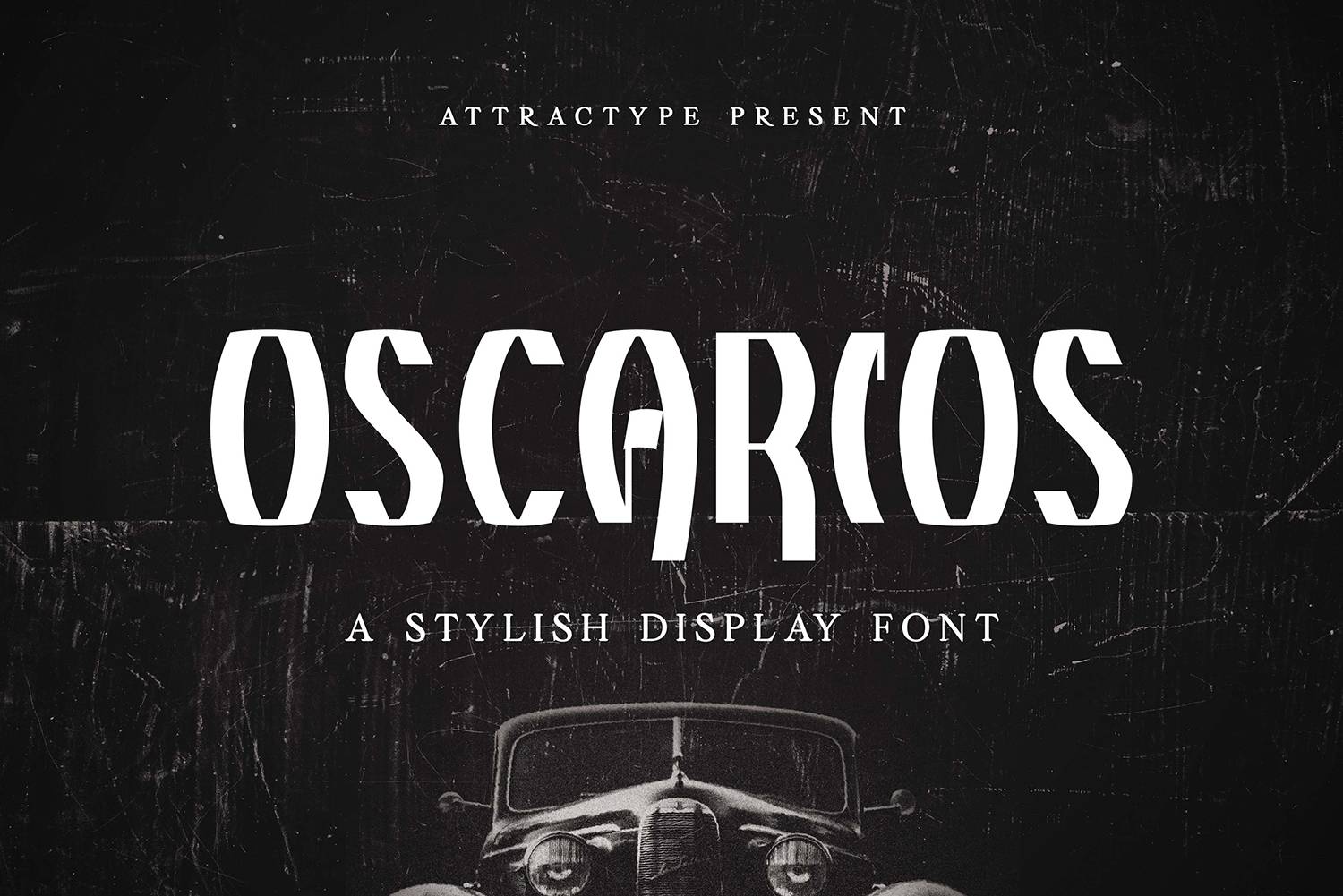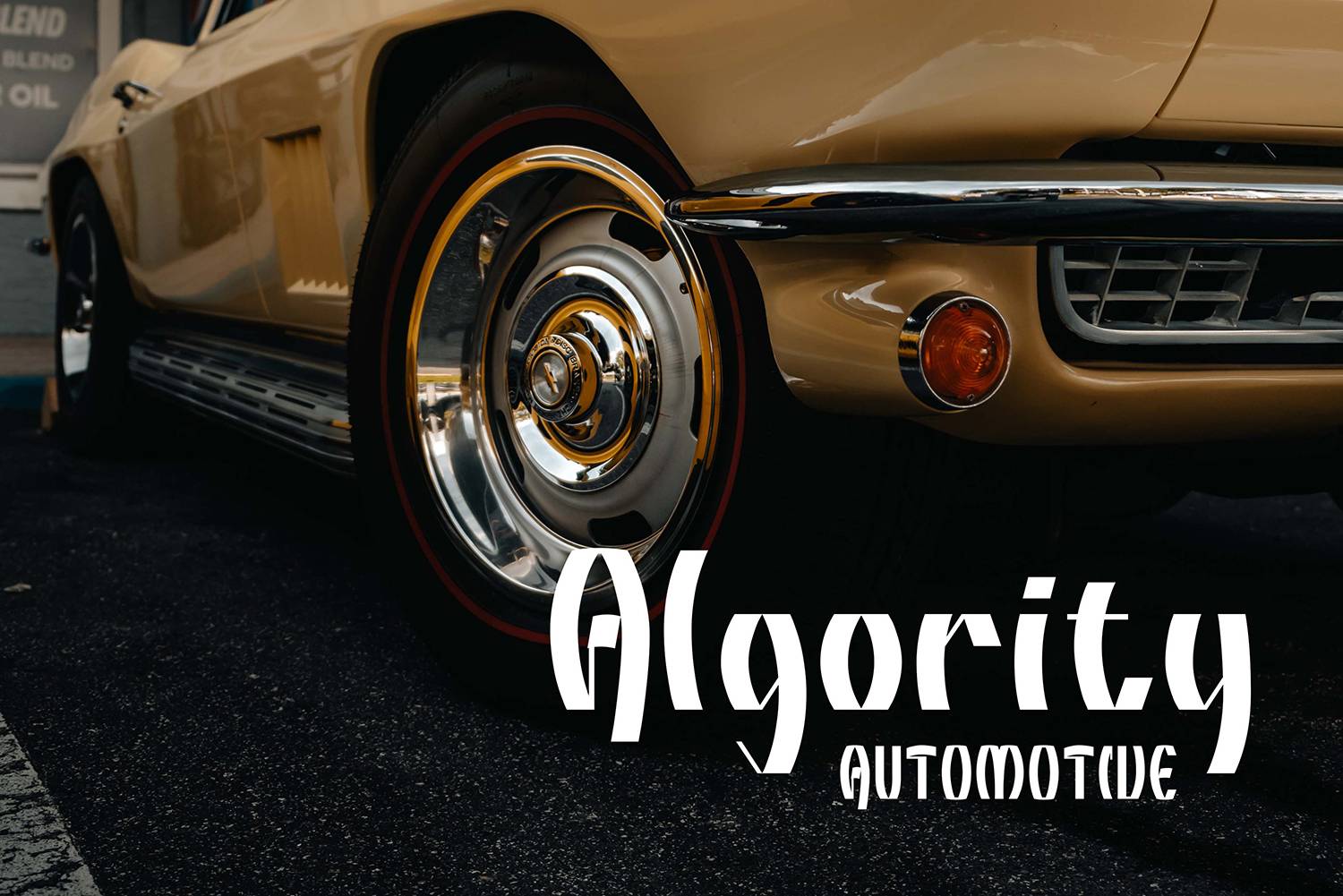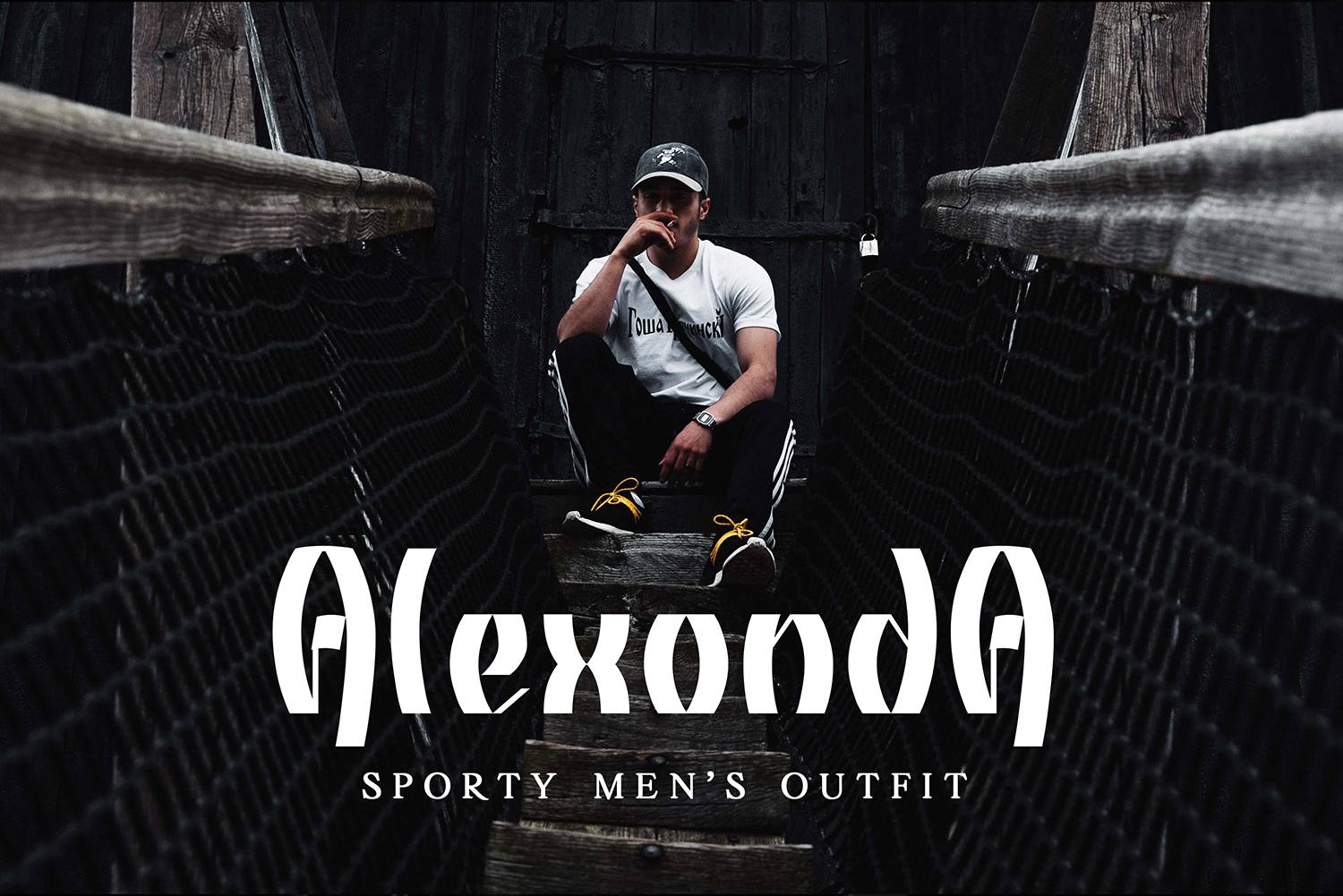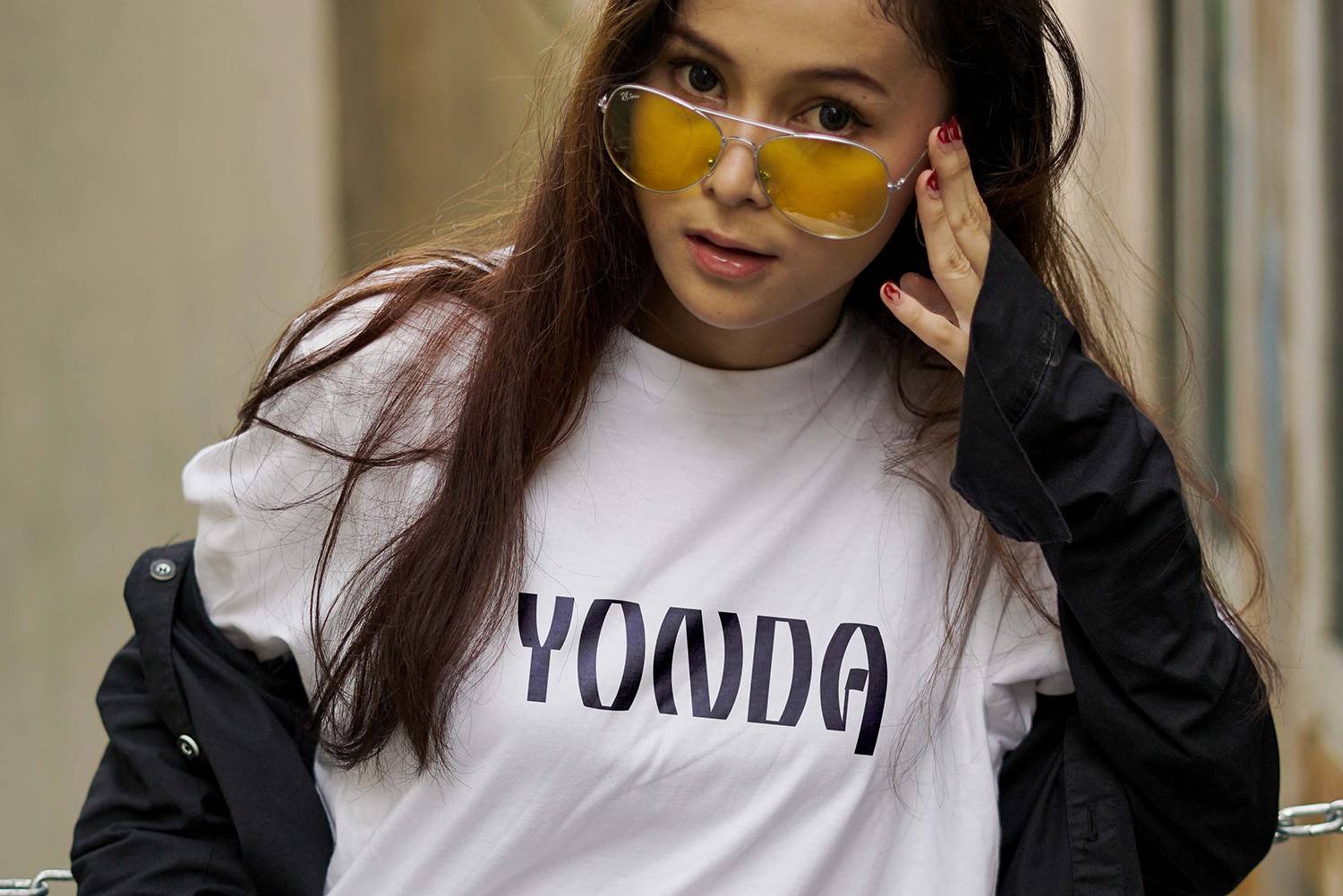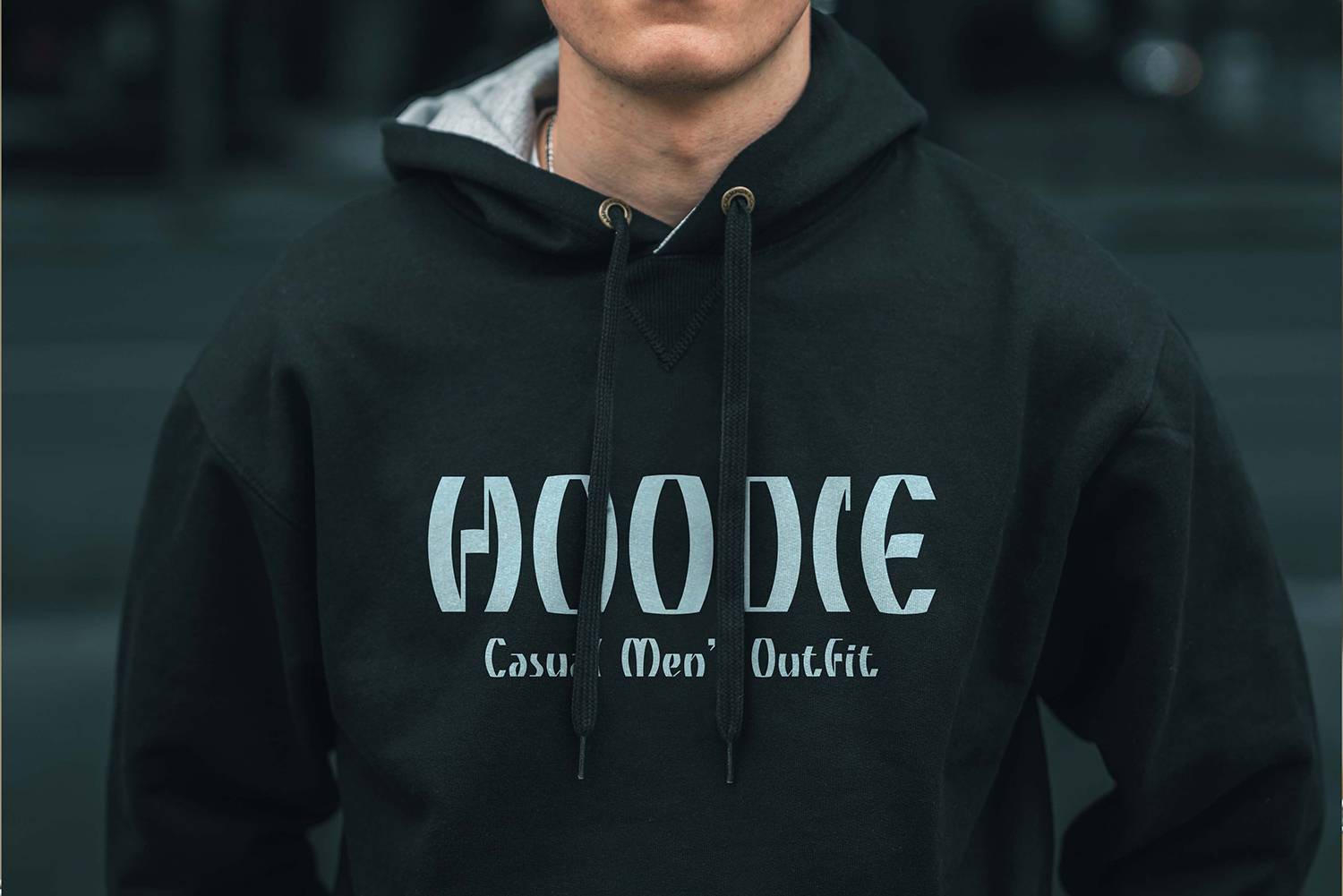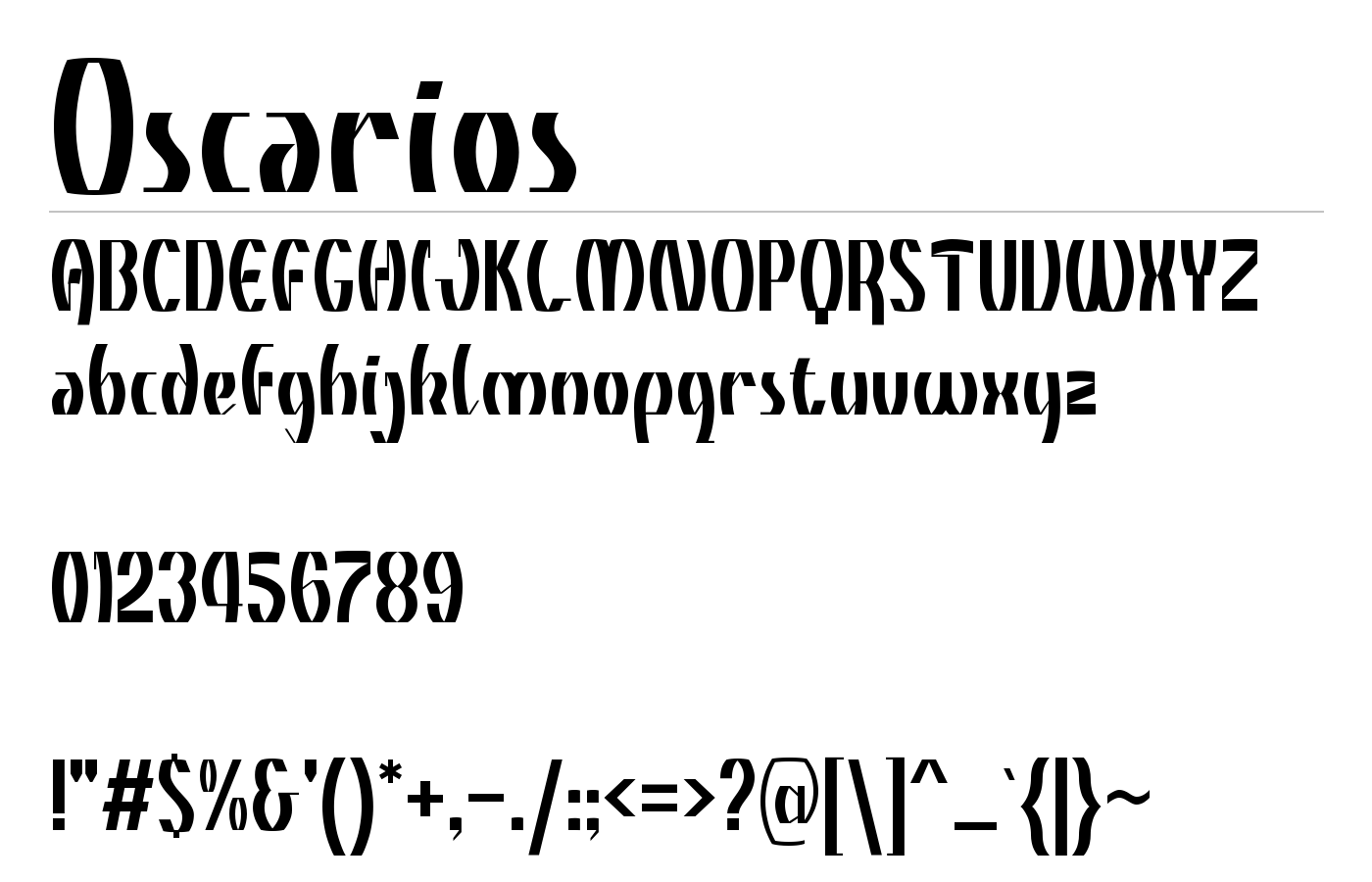
Oscarios is a bold, condensed serif font with a unique, artistic flair that blends sharp geometric shapes with flowing organic curves. Its high contrast strokes and stylized letterforms give it a dramatic, modern yet slightly vintage feel, making it ideal for eye-catching headlines, logos, and creative branding that seeks a distinctive and expressive personality. This font works well where bold impact and artistic character are needed to stand out and convey originality.
Oscarios Font
About Oscarios Font